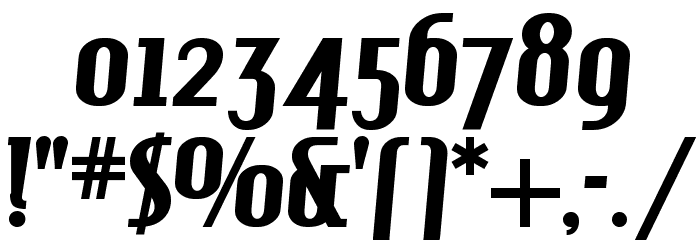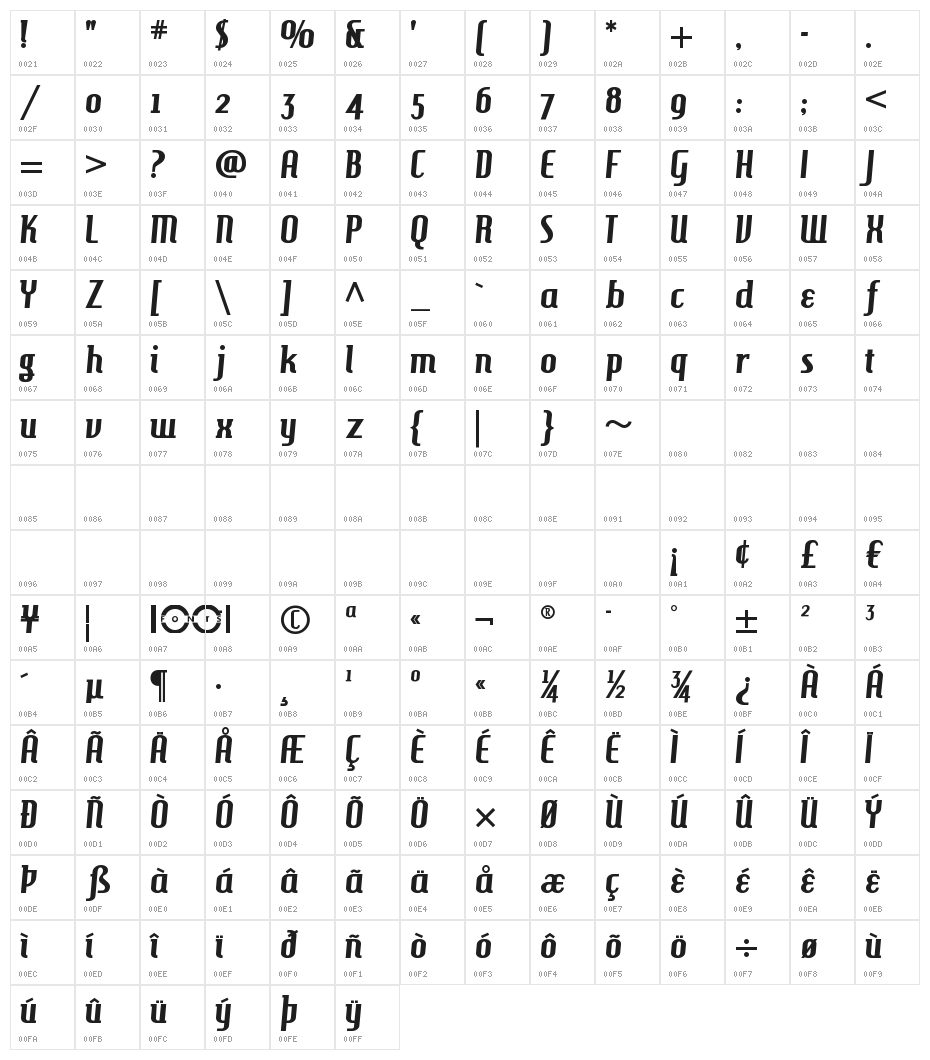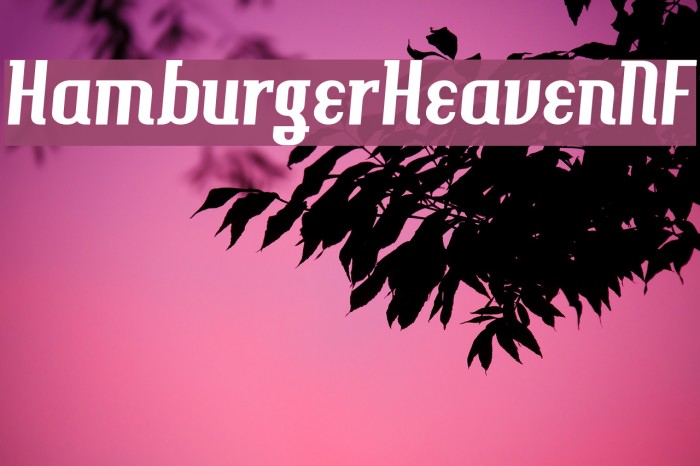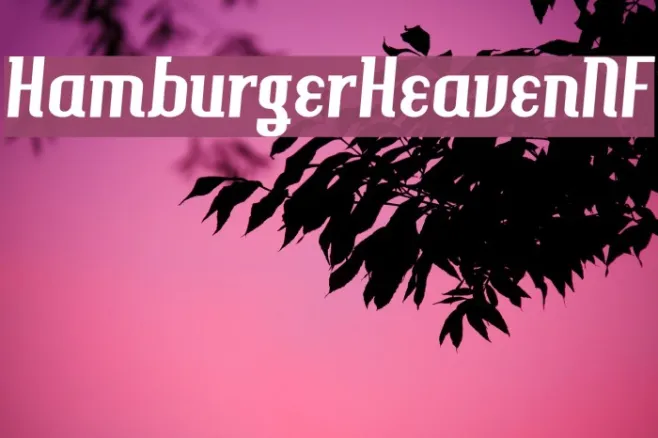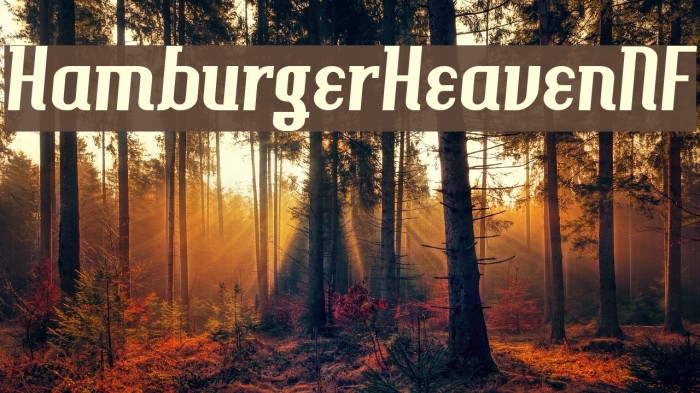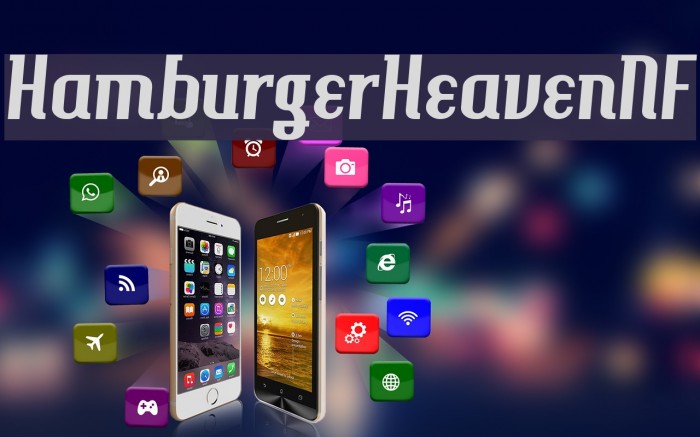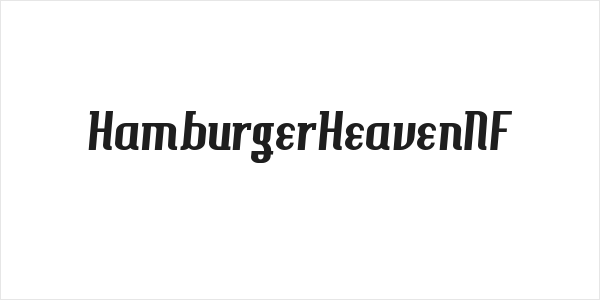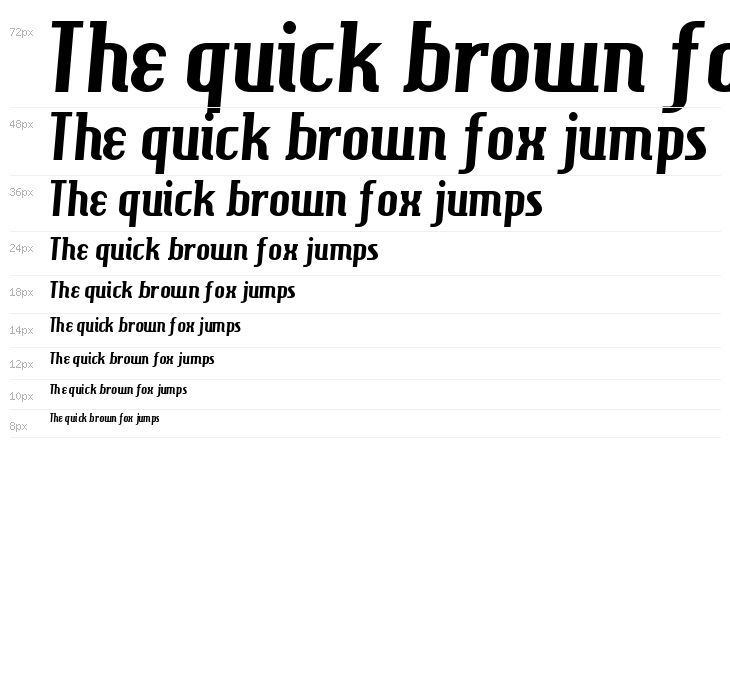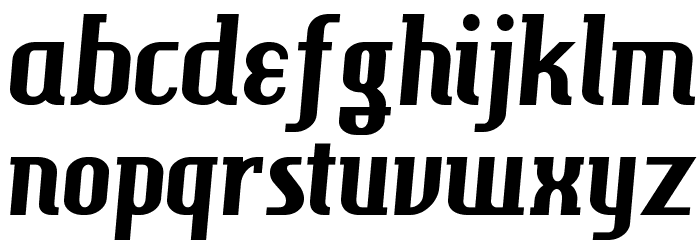
HamburgerHeavenNF Font
HamburgerHeavenNF Description
This font features a bold and dynamic style with a slight slant, giving it a sense of movement and energy. The characters are tall and narrow, with a condensed width that makes them ideal for creating impactful headlines. The strokes are consistent in thickness, providing a uniform appearance across all characters. The uppercase letters have a strong presence, while the lowercase letters maintain readability with their distinct shapes. The numerals are clear and well-defined, matching the overall aesthetic of the font. Special characters are included, enhancing the font's versatility for various design needs.